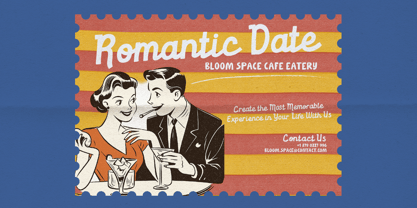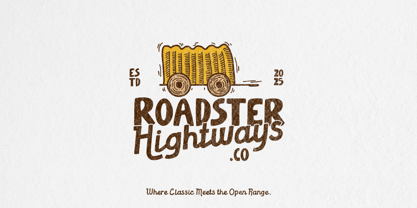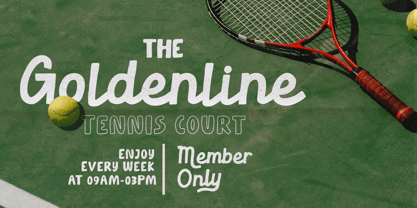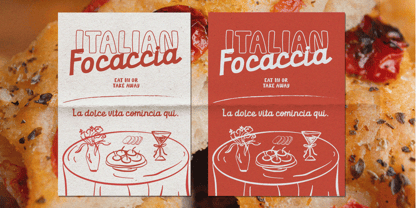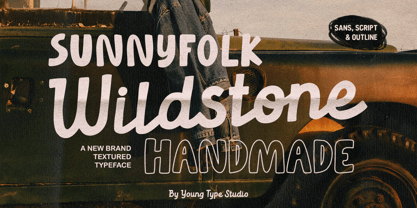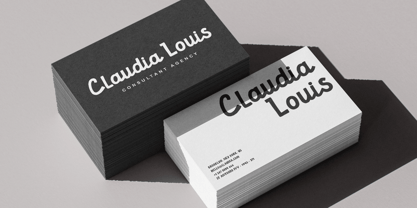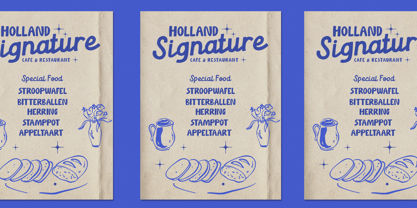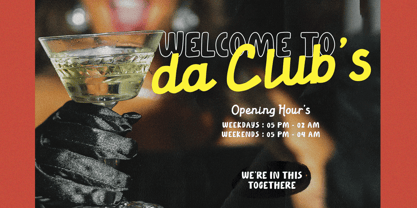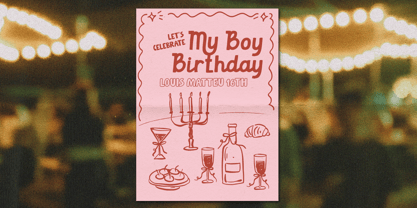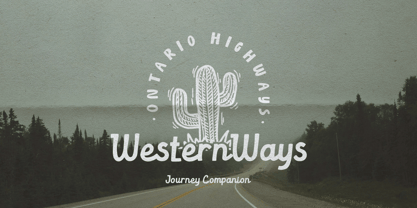
Sunnyfolk Wildstone
by Youngtype
The Sunnyfolk Wildstone Font Family was designed by Naufal Paramata and published by Youngtype. Sunnyfolk Wildstone contains 3 styles and family package options.
The typeface, named Sunnyfolk Wildstone, is a bold, handmade, and textured font family offered by Young Type Studio, distinguished by its rustic and friendly aesthetic ideal for vintage or outdoor-themed branding. It features a flowing, chunky Script style (as seen in "Wildstone") with a textured finish, a complementary rounded, bold Sans style (as seen in "SUNNYFOLK"), and an accompanying casual Outline style (as seen in "HANDMADE"), making it a versatile display face for projects requiring a warm, organic, and hand-drawn feel. Contains full set : Uppercase Lowercase Ligatures Punctuation Number Multilingual support. Thank you